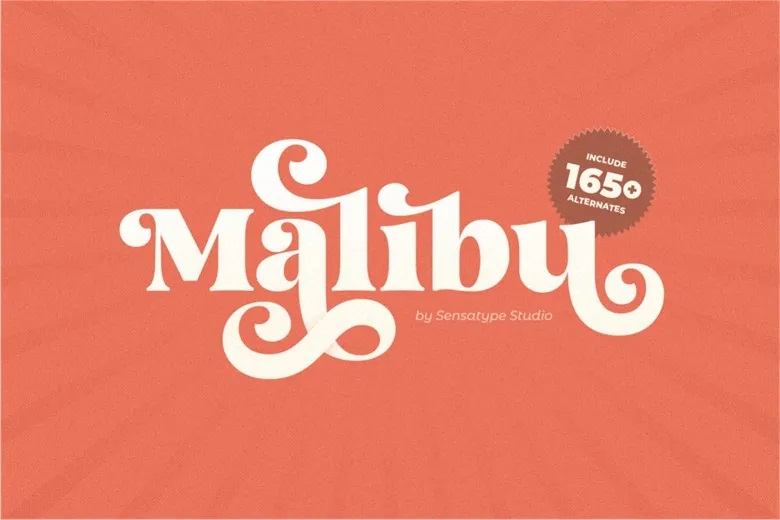
Malibu Font
Malibu is a serif design font which is concluded an optimal harmony of a simple, clear, sleek and elegant, delicate, antique, and diverse 165+ stylistic set in both curved and exquisite models within several seconds. Being a serif font with contrast of good readable, it is advisable for branding, logo design, wedding, social media post, advertising, packaging and product, design labels, invitations, events, stationery among others projects that can be well developed.
Malibu Serif Font